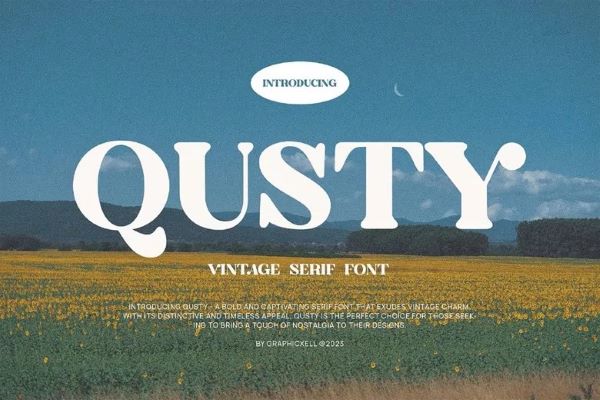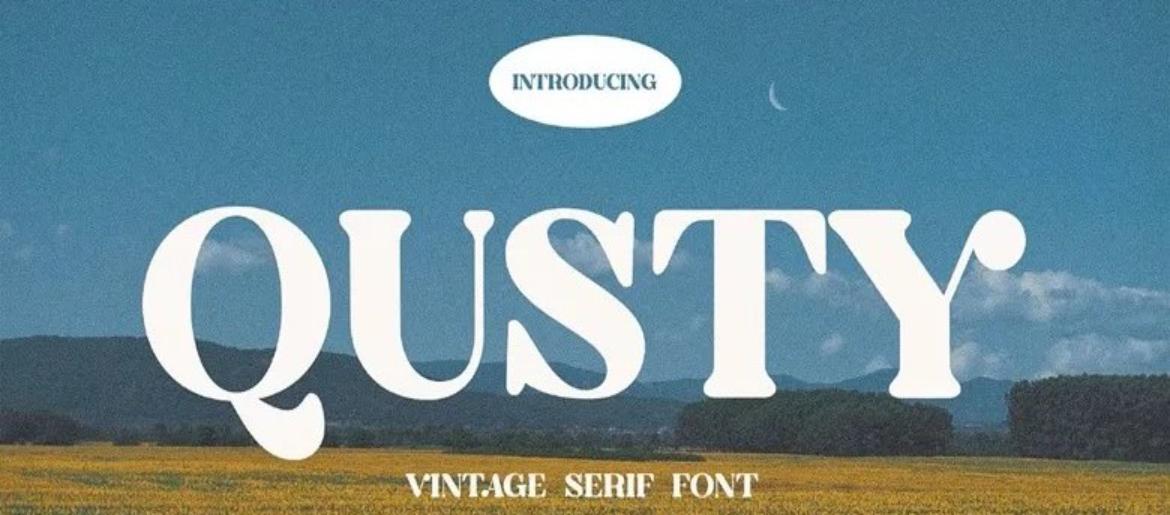
Qusty Font
Perfect for designers seeking memorable typography, Qusty shines brightest in applications demanding instant recognition and lasting impressions. From eye-catching advertisements and bold posters to dynamic social media graphics and standout packaging design, this typeface brings vintage charm with contemporary impact. Its remarkable readability combined with sophisticated elegance makes it an invaluable asset for any creative toolkit. Discover more distinctive typography in our extensive collection of free fonts for your next design project.